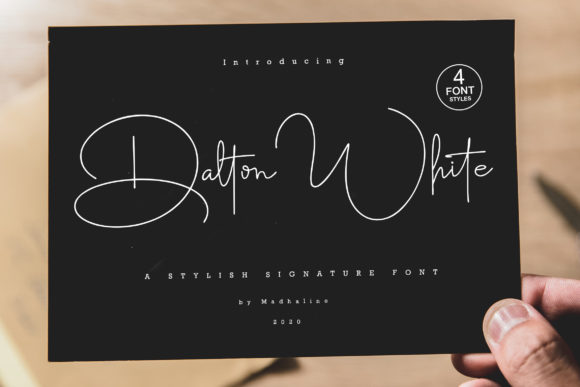
Adorn your designs with the irresistible charm of Dalton White Font, a captivating script masterpiece crafted by Madhaline Studio. Inspired by the allure of handwritten signatures, Dalton White Font exudes elegance, authenticity, and effortless style.
This font is not just a collection of letters; it's an embodiment of creative expression. Its fluid lines and graceful curves bring life to your digital and print projects. Use it to add a personal touch to your logos, branding, invitations, and social media posts.
Dalton White Font's versatility knows no bounds. Its carefully crafted characters seamlessly blend with a wide range of design styles, from classic serif fonts to modern geometric shapes. Experiment with its endless possibilities and watch your creations come to life before your eyes.
The PUA encoding feature of Dalton White Font makes it accessible to all glyphs and swashes with remarkable ease. No more tedious hunting for special characters or symbols – everything you need is right at your fingertips. Unleash your creativity and explore the full potential of this versatile font.
With Dalton White Font, you have the power to transform your ordinary designs into captivating works of art. Whether you're a seasoned graphic designer or just starting out, this font is the perfect tool to elevate your projects to the next level.
Take a leap of faith and embrace the beauty of Dalton White Font today. Its timeless charm and modern aesthetics are sure to leave a lasting impression on your audience.